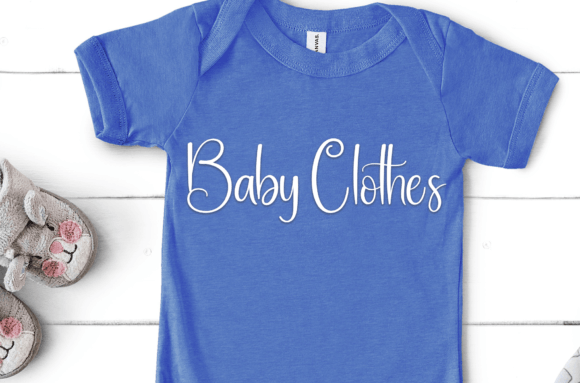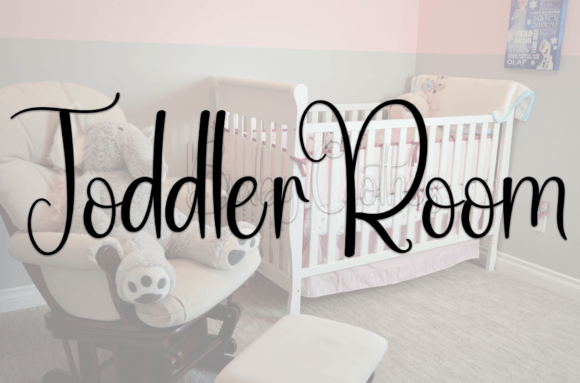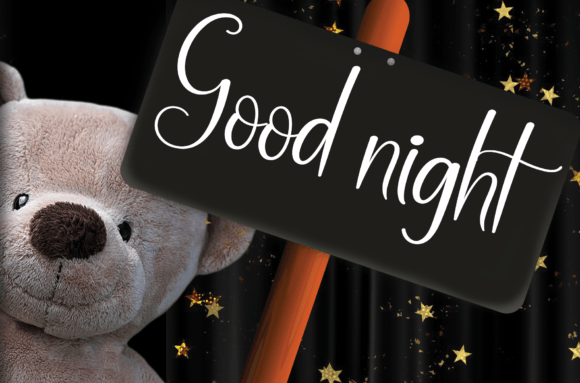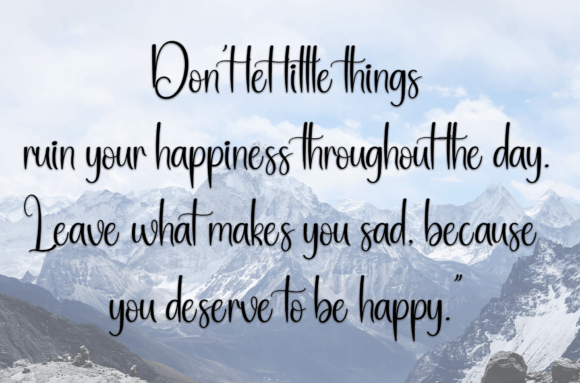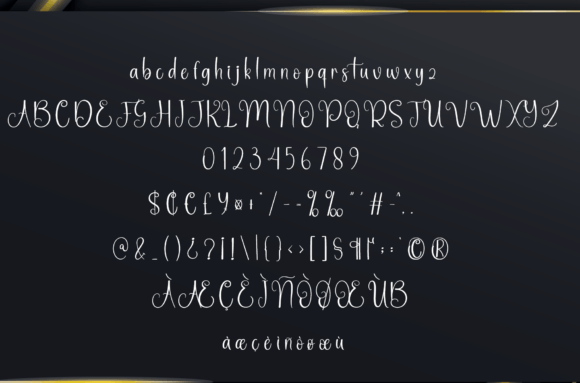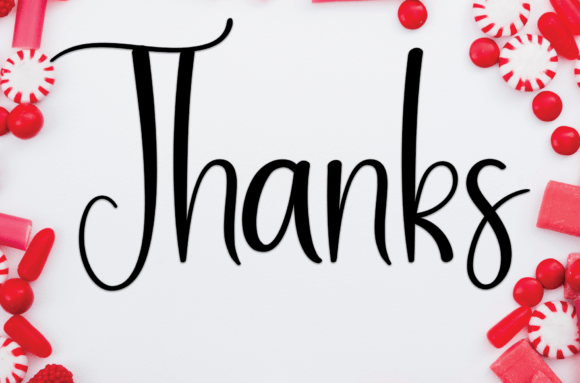
The Perfect Font for a Joyful Touch
Have you ever been working on a design project and suddenly felt like it’s missing that special something? You know, that extra sparkle that makes your creation truly unforgettable? For designers, this moment is a common occurrence, and it’s where creativity and experimentation come into play. I’ve been there, and I’m sure you have too.
That’s where Baby Day Font comes in – a sweet and friendly handwritten font that’s perfect for adding a fun touch to your designs. Whether you’re crafting wedding invitations, cards, or any other project that needs a playful vibe, Baby Day Font is an ideal choice. Its cute and whimsical feel makes it valuable for designers who want to add a personal and emotional connection to their work.
Baby Day Font Key Features
- Unique Characteristics: Baby Day Font features a playful, cursive design with rounded edges and a whimsical feel, making it perfect for baby-related products and designs
- Font Style: The font comes in both regular and bold styles, offering versatility for various design needs
Review of Baby Day Font
As a designer, I’ve had the chance to work with many fonts, but the Baby Day Font has left me with mixed feelings. On one hand, it has its strengths, and on the other, it has some notable limitations. Let’s dive in and see what it has to offer.
- The font’s playful and whimsical feel makes it perfect for designing children’s products, such as toys, nursery decor, or kid-friendly apps.
- The font is highly customizable, allowing designers to adjust the size, color, and style to fit their specific needs.
- The Baby Day Font is a great choice for creating eye-catching headings and titles that grab the user’s attention.
- The font may not be suitable for more formal or professional projects, as it can come across as too childish or playful.
- The font’s design can be overwhelming if used extensively throughout a design, which may lead to visual fatigue.
- The font’s compatibility may vary across different devices and operating systems, which could lead to inconsistent rendering.
While the Baby Day Font has its strengths, its limitations prevent it from being a go-to choice for all design projects. It’s perfect for specific niches, such as children’s products, but may not be the best fit for more general design needs. With proper use and customization, it can be a valuable addition to any designer’s toolkit.
Tips for Getting the Most Out of Baby Day Font
1. Use the font in conjunction with playful graphics and colors to create a fun and engaging design.
2. Experiment with different font sizes and styles to add visual interest to your design.
3. Consider using the font in a combination with other fonts to create a unique and eye-catching design.
1. Baby shower invitations and decorations.
2. Children’s party designs and materials.
3. Educational materials and children’s books.
Alternatives to “Baby Day Font” for Designers
Great Vibes Font is a playful, cursive font ideal for creating a whimsical atmosphere in children’s products or branding. It has a similar feel to Baby Day Font but with a more modern twist. Great Vibes Font is perfect for designing nursery decor, children’s clothing, or other products aimed at young parents.
Alex Brush Font is a elegant, handwritten font that works well for creating a sophisticated and personal touch in designs. While it has a different feel from Baby Day Font, it can be used in similar contexts, such as designing baby shower invitations or children’s book covers.
Pacifico Font is a beautiful, modern script font that is perfect for creating a relaxed and casual atmosphere in designs. It is similar to Baby Day Font in its elegance and sophistication but has a more laid-back feel. Pacifico Font is ideal for designing children’s products, such as toys or educational materials.